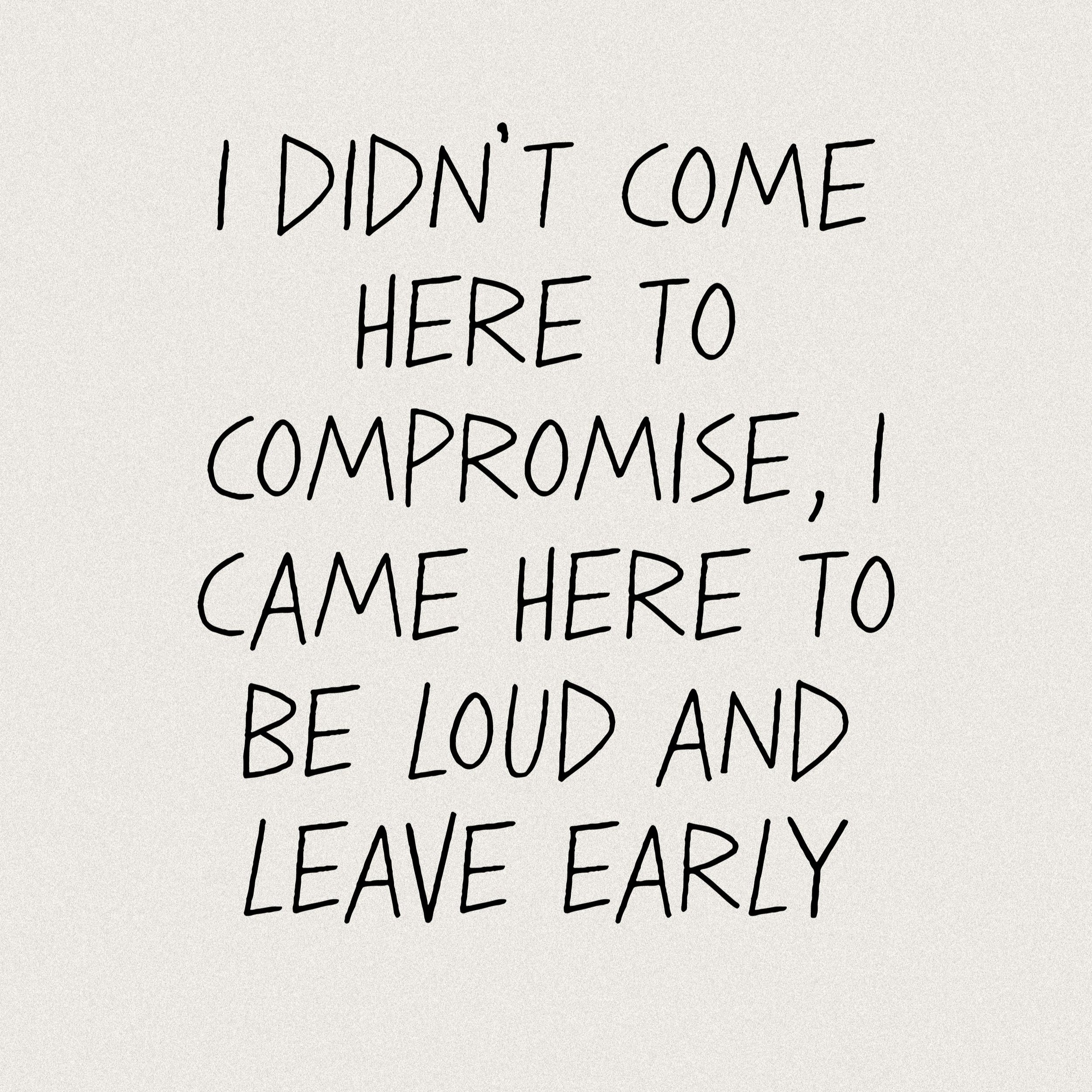
Walkout
Walkout is a hand-drawn display typeface with protest roots. It’s strong, a little uneven, and not here to blend in. Built for headlines, statements, and somewhat disruptive typography.
Uppercase letters and digits
Alt. Characters
Full punctuation